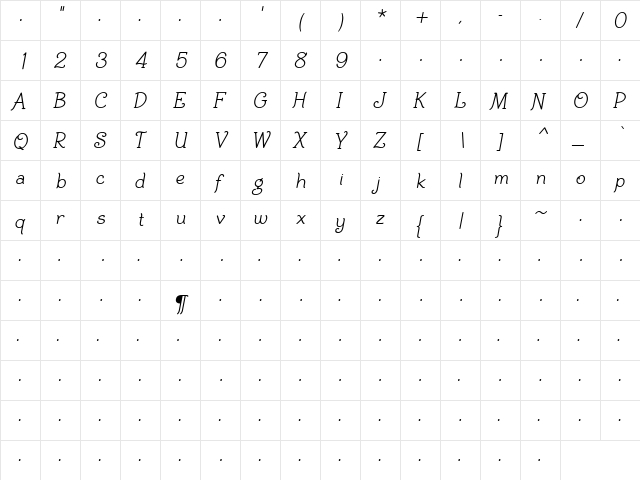
BiracDT Italic
Design Context for BiracDT Typeface
BiracDT offers clean, dependable letterforms without strong stylistic allegiance, making it a practical choice for designers who need flexibility. Its italic angle brings a sense of urgency and motion to the letterforms.
Pro Tip: Use BiracDT for emphasis, pull quotes, and subheadings where its slanted energy can add rhythm to the layout.